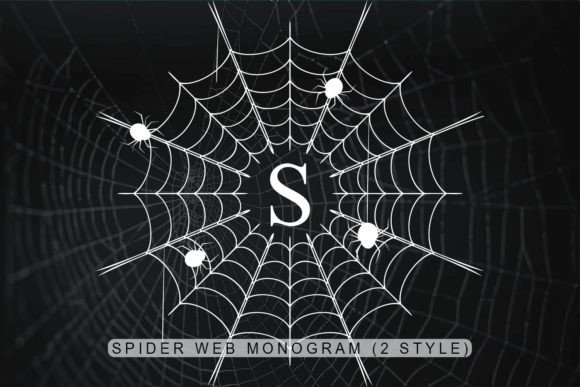
Welcome to the realm of Spider Web Monogram, a decorative font that will cast a spellbinding charm over your designs, conjuring an atmosphere of mystery and intrigue. Step into a world where intricate webs and elegant monograms intertwine, captivating all who behold them. Let your imagination soar as you weave words into enchanting sigils, creating personalized monograms that reflect your unique style.
Embrace the allure of Spider Web Monogram and watch as your Halloween designs transform into captivating works of art. Unleash your creativity and let the spellbinding tendrils of this font entwine with your words, creating an ethereal atmosphere that will leave your audience spellbound.
With Spider Web Monogram, the possibilities are as vast as the starlit night sky. Craft haunting invitations, eerie posters, spine-chilling flyers, and otherworldly social media graphics that will evoke a sense of wonder and enchantment. This font is the perfect companion for all your Halloween-themed projects, adding an extra touch of magic to every creation.
But Spider Web Monogram is not limited to the realm of Halloween. Let its versatile charm weave its magic into a myriad of other projects. Design captivating logos that will ensnare the attention of potential customers, create unique branding elements that reflect your company's distinctive identity, or craft eye-catching headlines that will draw readers in like moths to a flame.
Spider Web Monogram is a font that knows no bounds, a font that will inspire you to create designs that transcend the ordinary. Let its intricate lines and haunting beauty cast a spell over your audience, leaving them captivated by your creations.
So, embark on this enchanting journey with Spider Web Monogram and let your creativity run wild. Discover the boundless possibilities that lie within this font, and unleash the magic that awaits you.